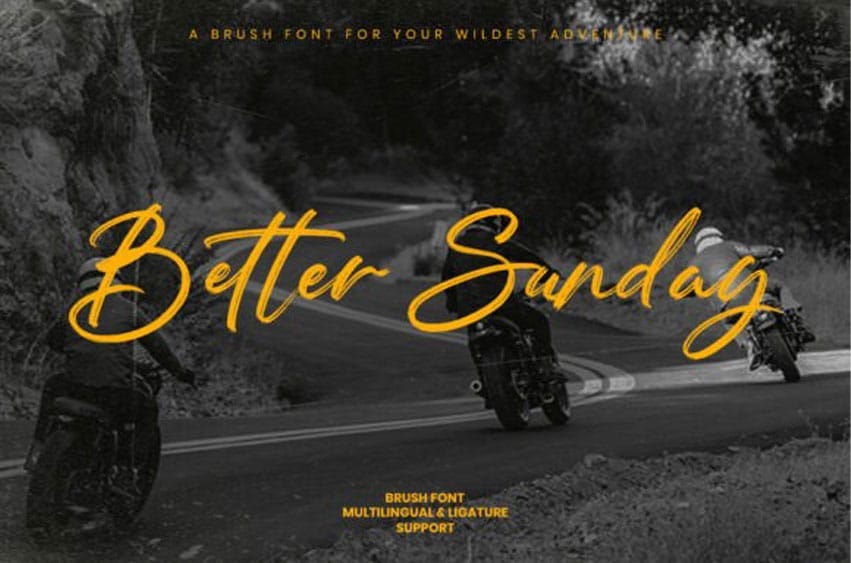
Better Sunday Font is a bold brush script font built for freedom, speed, and untamed expression. Inspired by the spirit of open roads, vintage motorcycles, and fearless brotherhood, this typeface carries raw energy in every stroke. The textured brush details and natural hand-painted flow give it an authentic, rugged personality—perfect for designs that need to feel alive, loud, and unapologetically wild.
Designed with strong uppercase and lowercase characters, stylish ligatures, numerics, symbols, and multilingual support, Better Sunday delivers both expressive headlines and dynamic compositions. Each letter feels organic and powerful, making your typography look like it was painted in one confident motion.
Perfect for motorcycle club branding, adventure posters, apparel graphics, event flyers, packaging, logos, merchandise, social media campaigns, and bold editorial layouts. Whether you’re creating a road-bound society poster or a fearless streetwear statement, Better Sunday turns every word into a banner of adventure.